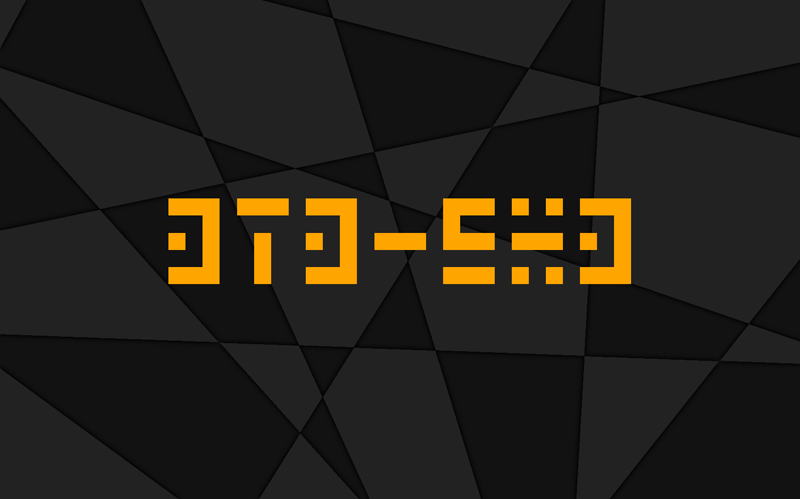
Preview and download 3t3-5x3 Font. Created by うろのる (uronoru) in Techno Square styles with Public domain / GPL / OFL license.
3t3-5x3 is my first product. It's pretty difficult for understanding. But I think it became cool one. 3t3-5x3 includes basic 1 bit character and some ligature icon. 3t3-5x3 is licensed under "the SIL Open Font License (OFL)" for download and using. I hope you like. |